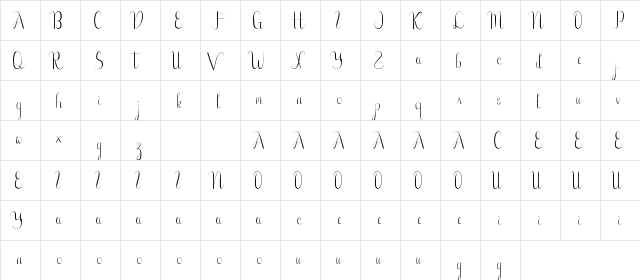
Goshty Doll Demo Regular
| Foundry | Edric Studio |
| Designer | Widiyanti & Sarah Suci Pauziah |
Goshty Doll Demo is a composed and adaptable typeface that performs quietly and consistently across a wide range of design contexts.